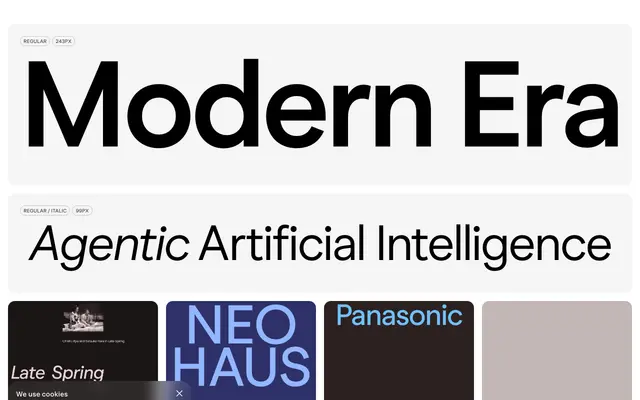
Modern Era
A geometric sans-serif by Briton Smith in 12 styles plus four monospaced cuts, updated in 2026 with revised italics.
Designed by Briton Smith and first released in 2017, Modern Era is a clean geometric sans available in 12 proportional styles and a four-style monospaced companion family. Version 2.0.0, issued in 2026, brings revised italics and a broad language support list covering Latin Extended, Greek and Coptic scripts across well over 100 languages. OpenType features include six stylistic sets, fractions, ordinals, tabular figures and a slashed zero, giving the family enough flexibility for editorial, interface and branding work.
Modern Era exhibits clean geometric proportions with neutral stroke contrast, placing it firmly in the geometric sans-serif category. The monospaced variant and stylistic alternates confirm a contemporary, functional orientation.